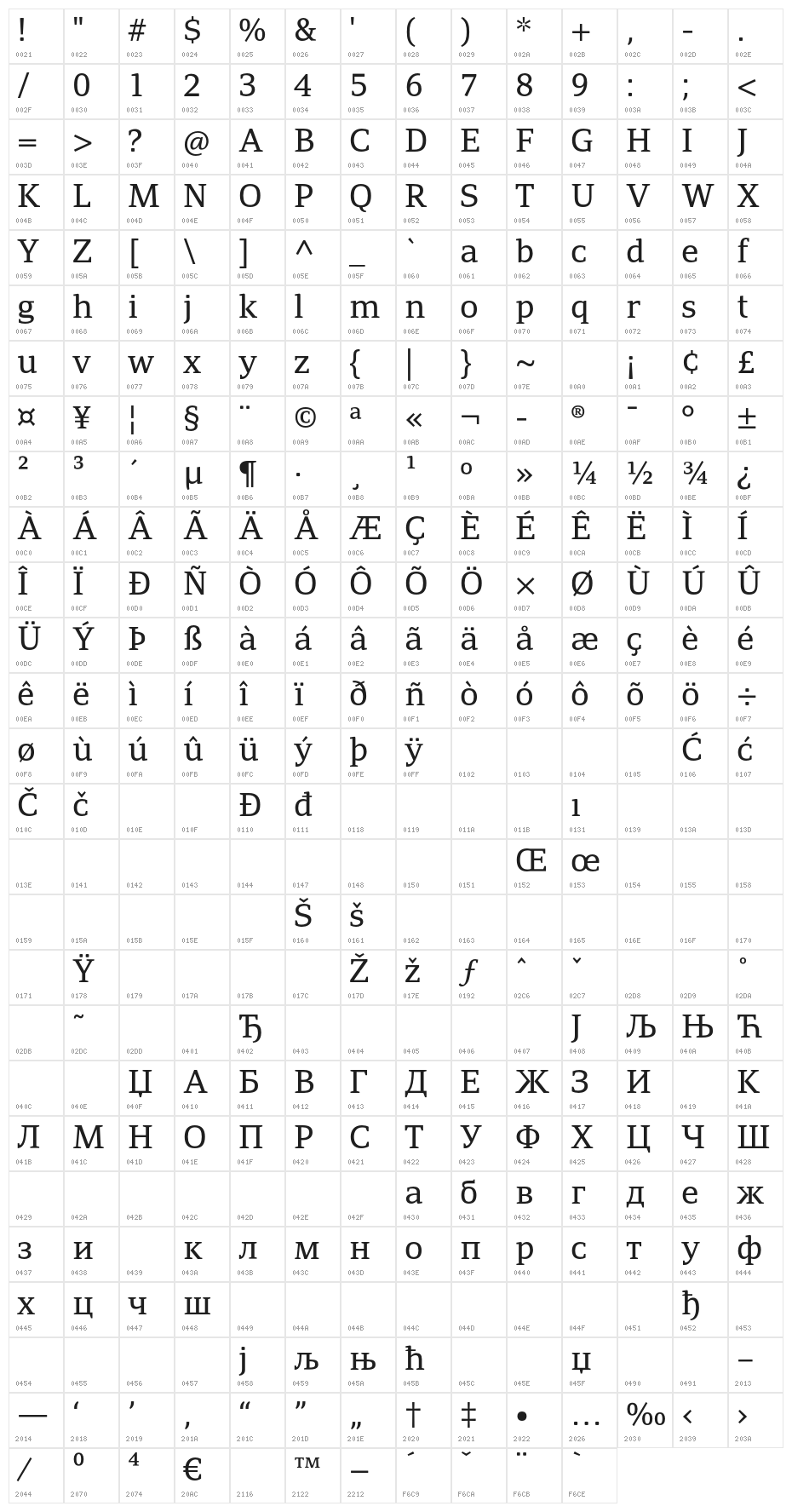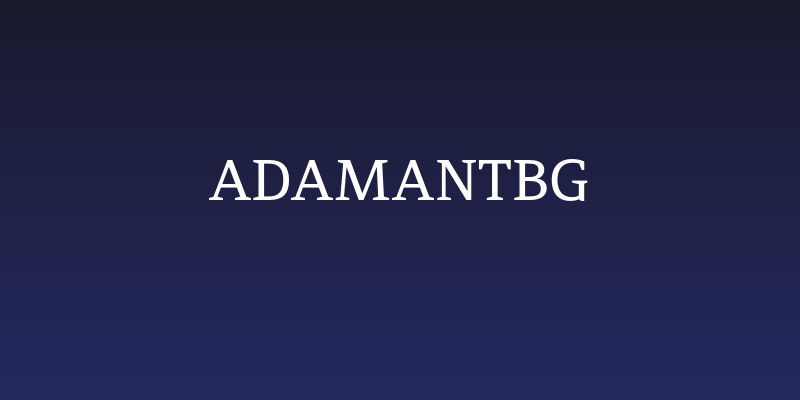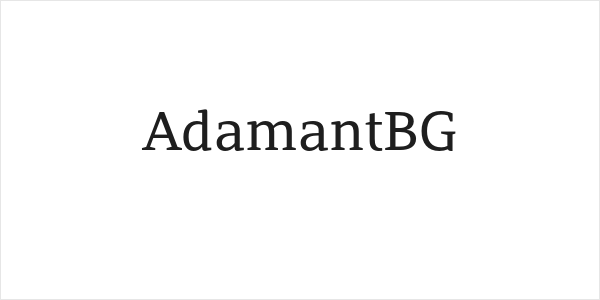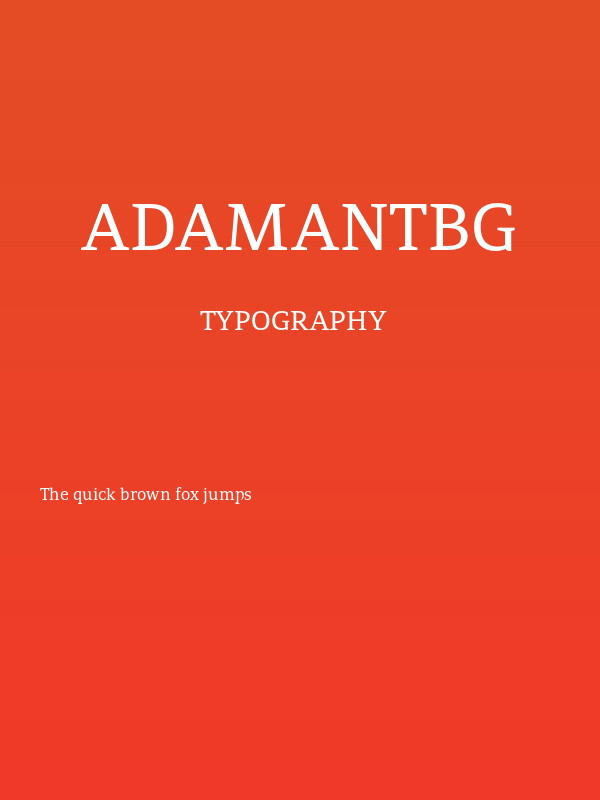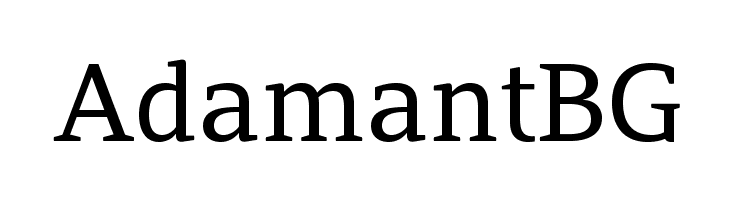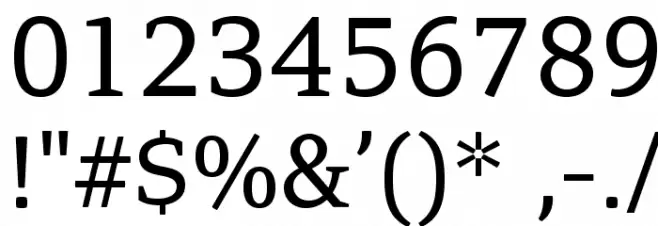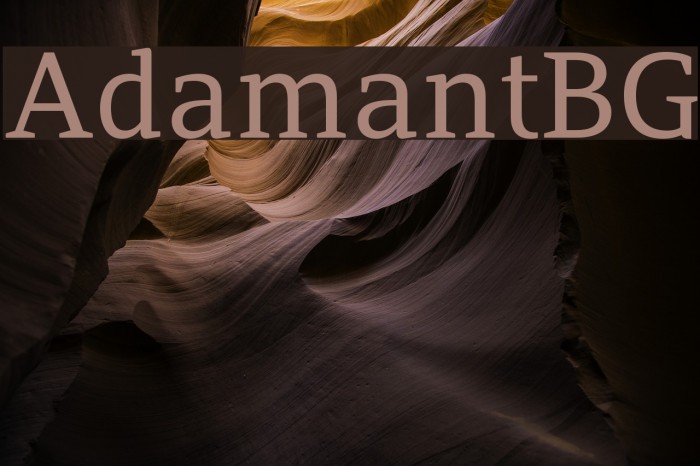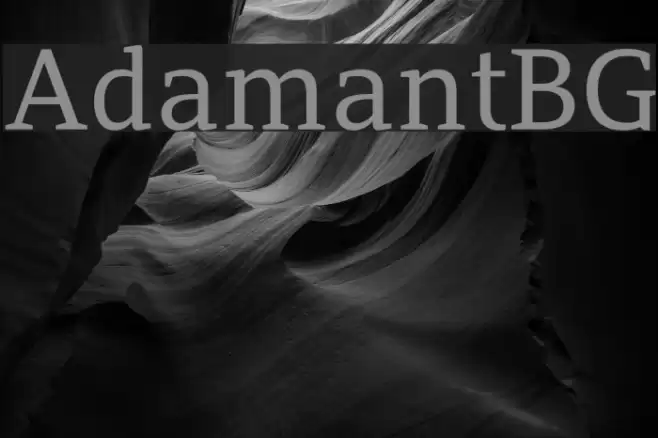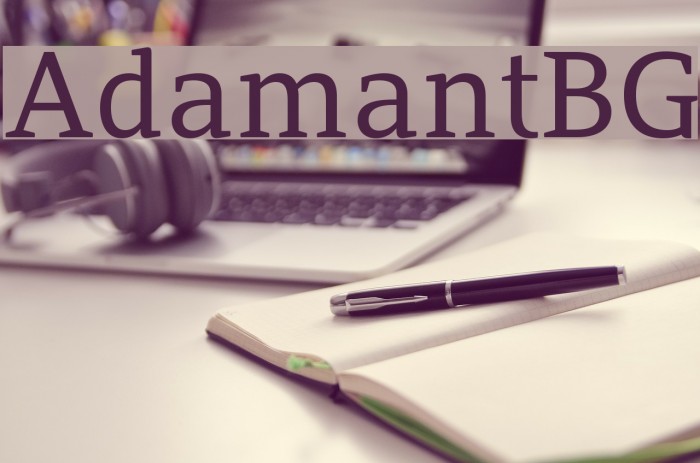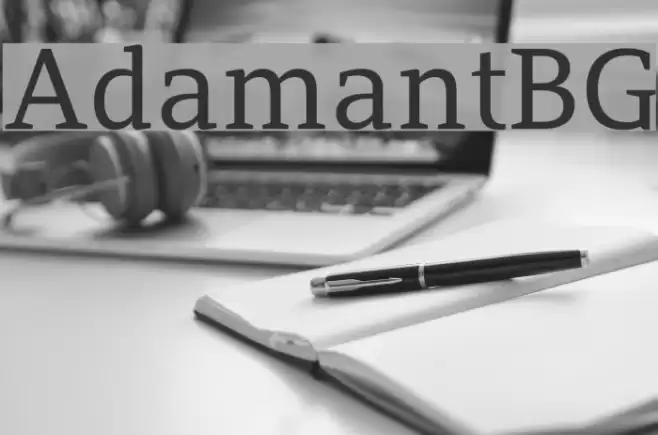
AdamantBG Font
✎ Serif
AdamantBG Description
This font exhibits a classic serif style with a modern twist, characterized by its clean and sharp lines. The uppercase letters are bold and authoritative, while the lowercase letters maintain a balanced and readable form. The numerals are clear and distinct, making them suitable for both display and text purposes. The special characters are well-integrated, ensuring consistency across all glyphs. The overall design is versatile, making it suitable for a variety of applications from editorial design to branding.
| Use Case | Headlines, Body text, Logos |
| Proposed Projects | Ideal for editorial design, branding, print media, and digital content where a classic yet modern look is desired. |